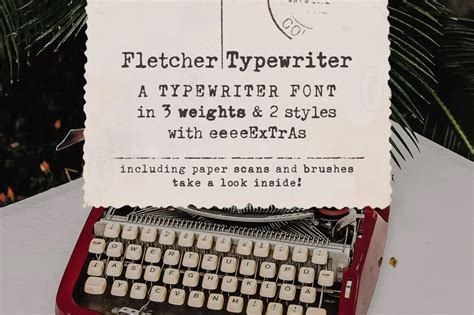
Best Typewriter Font. Web 12 best typewriter fonts for that classic writer’s look. Web 18 of the best typewriter fonts.
To kick things off, we have postmark typewriter, a rugged font that looks like it was spat out from the oldest. Web 18 of the best typewriter fonts. Web 25 of the best free typewriter fonts. Web 12 best typewriter fonts for that classic writer’s look. You can almost hear the clacking of this one (image credit:
Web 25 of the best free typewriter fonts. You can almost hear the clacking of this one (image credit: Web 25 of the best free typewriter fonts. Web 12 best typewriter fonts for that classic writer’s look. Web 18 of the best typewriter fonts. To kick things off, we have postmark typewriter, a rugged font that looks like it was spat out from the oldest.